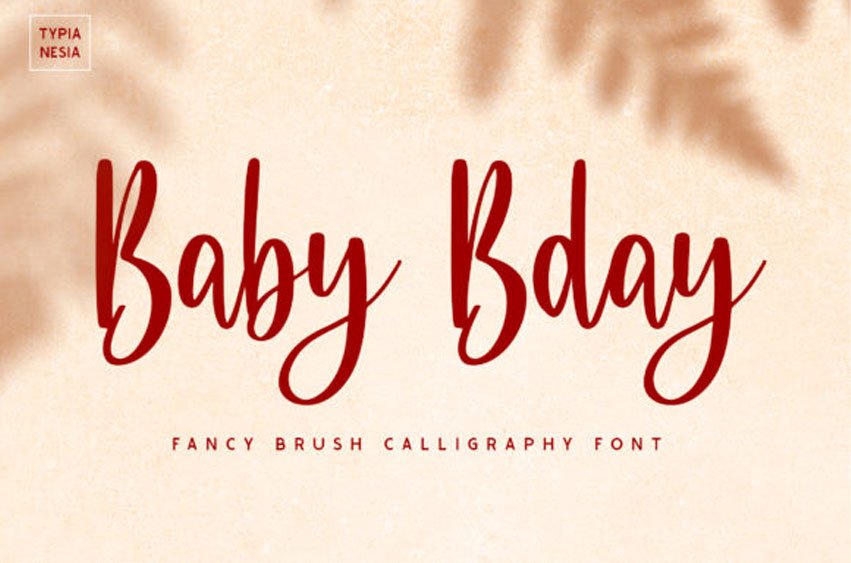
Baby Bday Fon is an elegant and dainty handwritten font that features sweet and delicate swashes.
This original look will appeal to a wide range of crafty ideas, from letterheads and titles, to stationery.